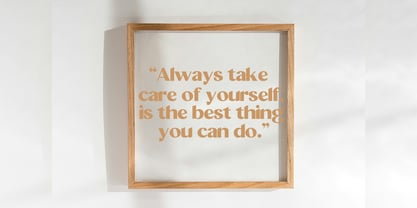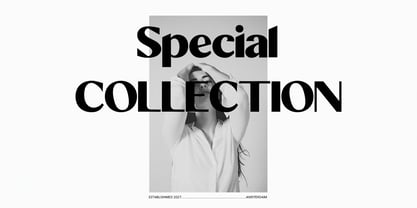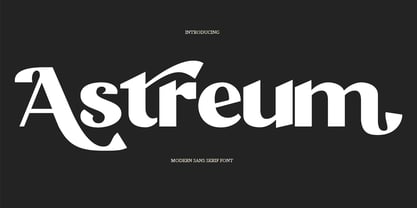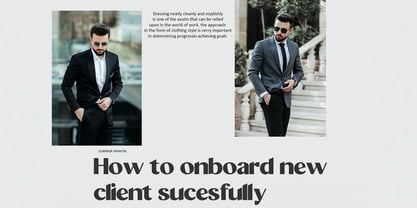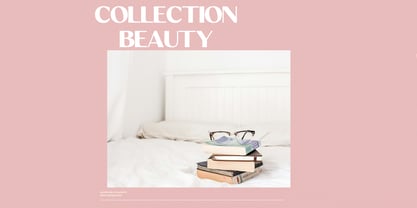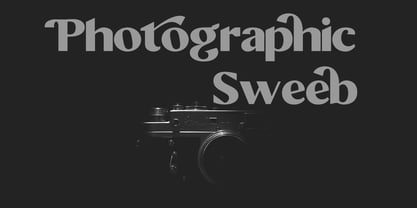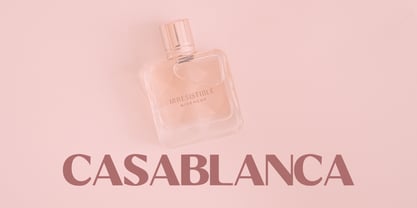
Astreum Gradient
Die Schriftfamilie Astreum Gradient wurde von Teuku Saifullah entworfen und von Shape Studio veröffentlicht. Astreum Gradient enthält 9 Stile und Familienpaketoptionen. Mehr über diese Familie
Astreum attracts a typeface that is smooth, clean, unique, elegant, modern, feminine, sensual, glamorous, simple, and very easy to read. Classic style is very suitable to be applied in various formal forms such as invitations, labels, menus, logos, fashion, makeup, stationery, letterpress, romantic novels, magazines, books, greeting/wedding cards, packaging, labels.